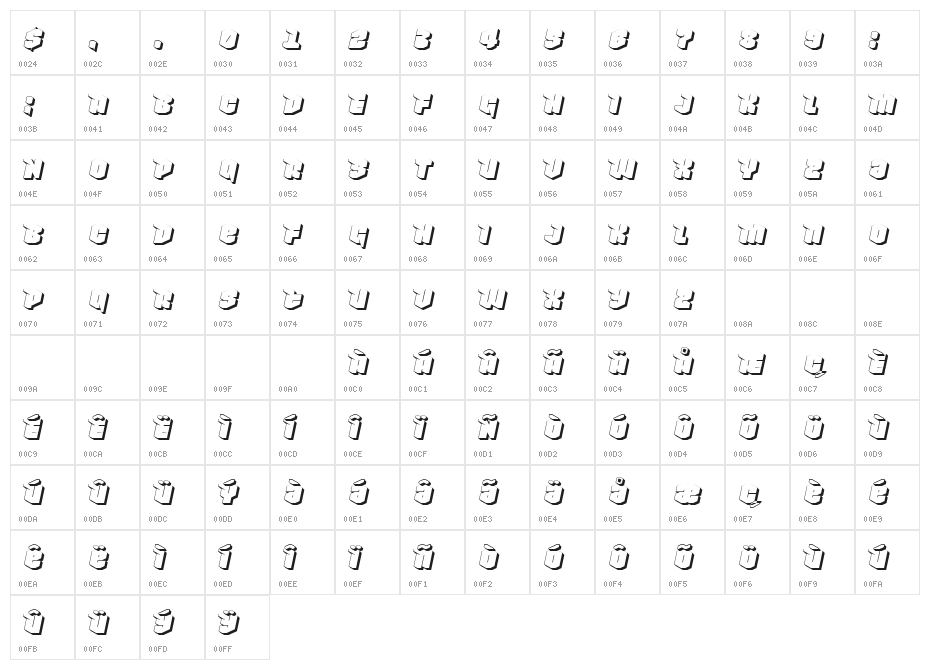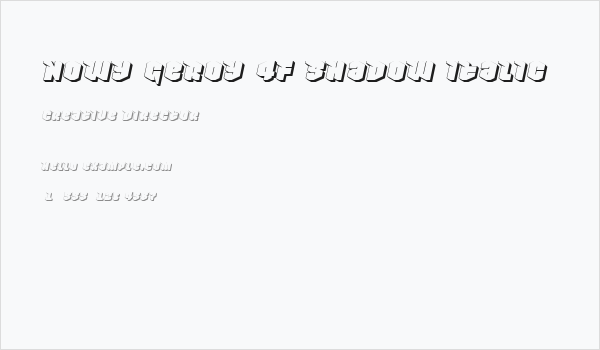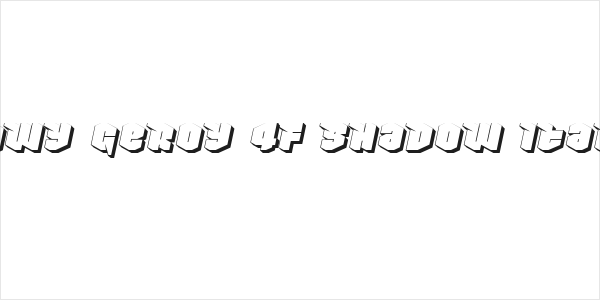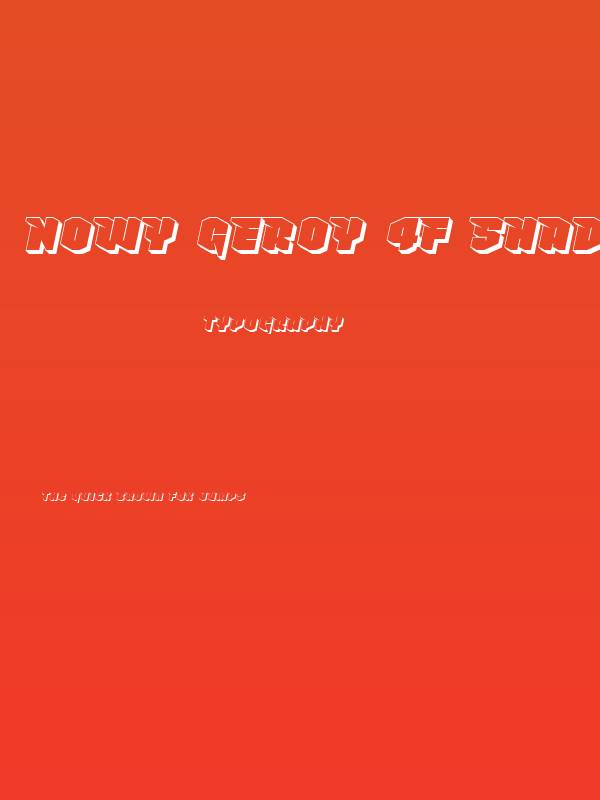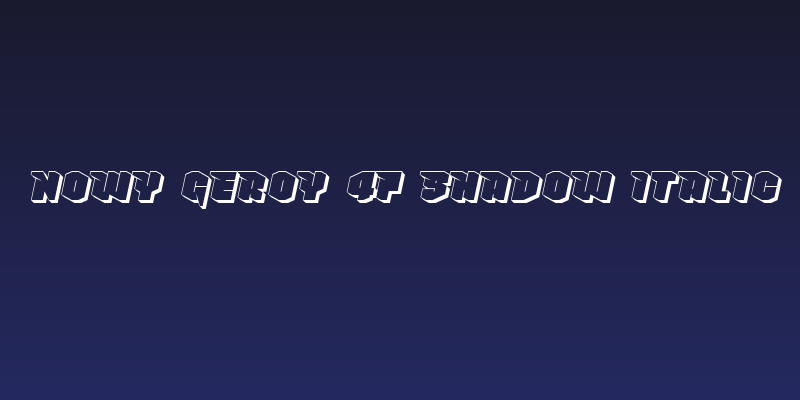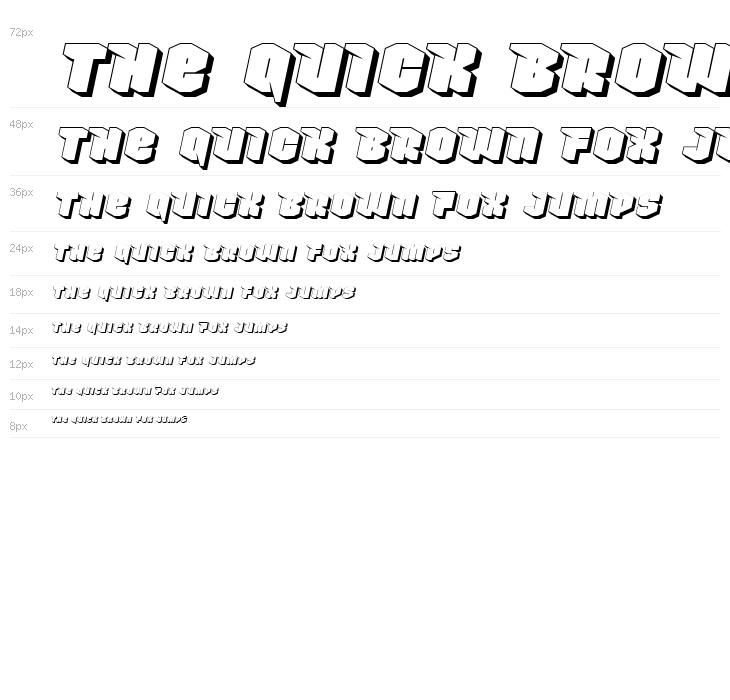
Nowy Geroy 4F Shadow Italic Font
Nowy Geroy 4F Shadow Italic Description
This font features a bold, three-dimensional shadow effect that gives it a striking and dynamic appearance. The characters are blocky and angular, with a strong presence that makes them stand out. The italic slant adds a sense of motion and energy, enhancing the overall impact. Each letter is well-defined with sharp edges and a consistent shadow that creates depth. The font is highly decorative, making it ideal for attention-grabbing designs. Its unique style is suitable for projects that require a bold statement.
| Proposed Projects | Ideal for posters, headlines, logos, and any design needing a bold, eye-catching font. |